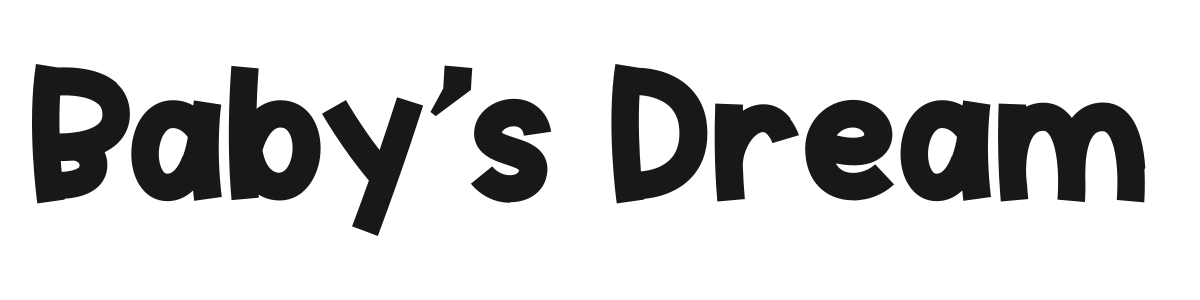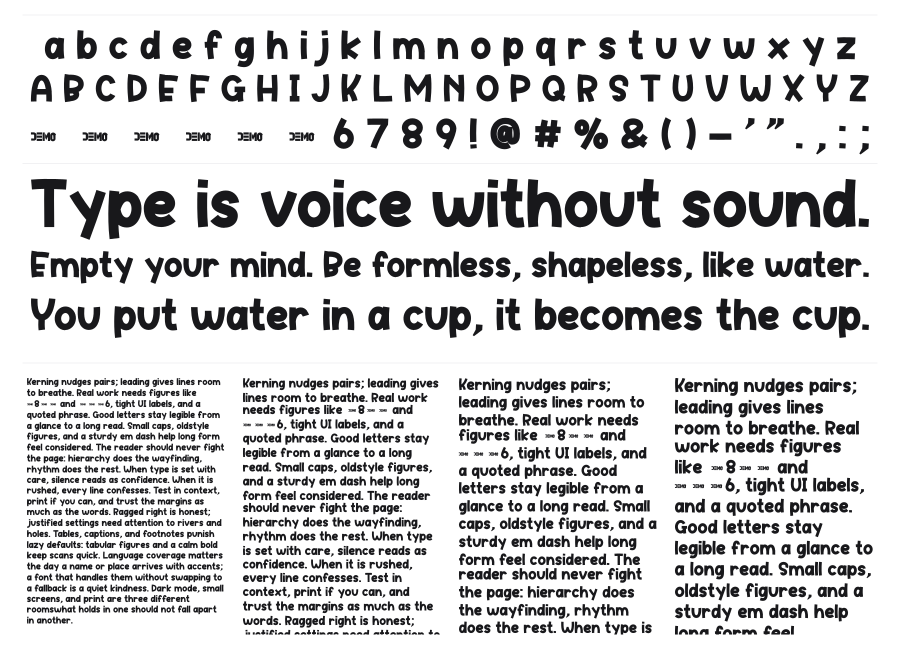
Baby's Dream
by Pria Admaja
Baby's Dream is a bold, chunky rounded sans with a playful, hand-drawn spirit. The heavy strokes and soft terminals give it a buoyant, almost inflatable quality that reads instantly as fun and child-friendly. Works best at large sizes for titles, packaging, and anything aimed at kids.